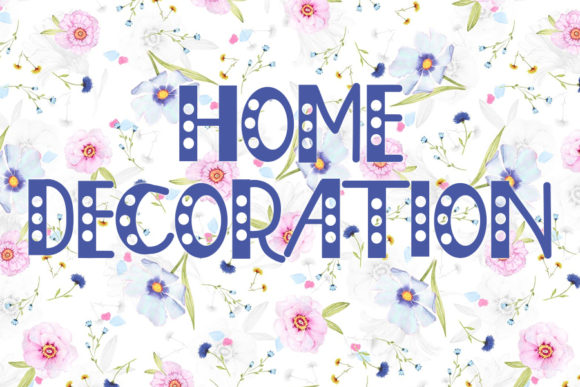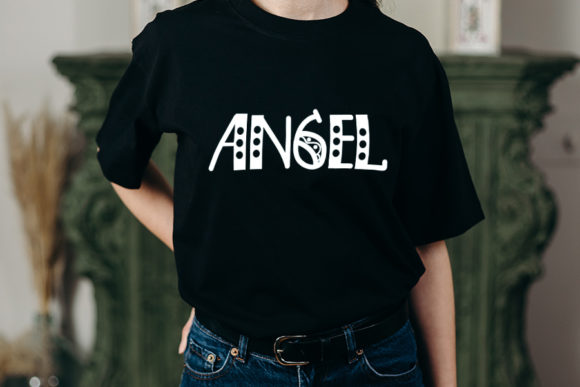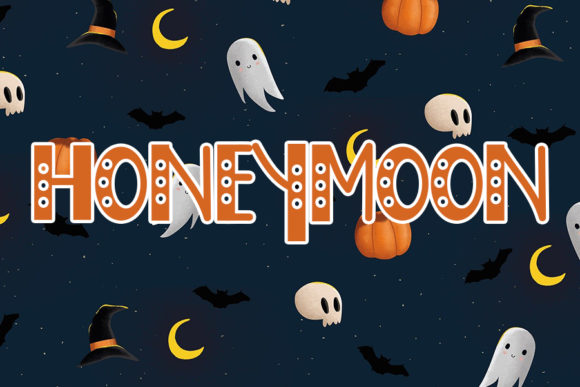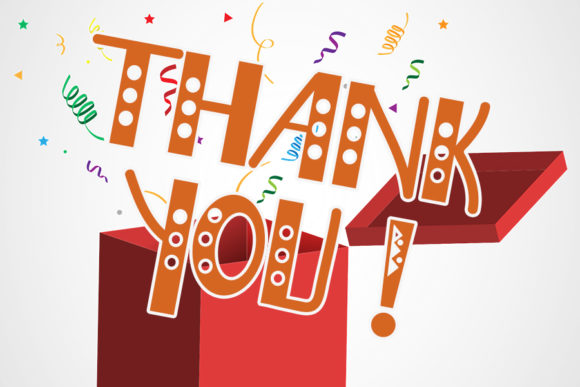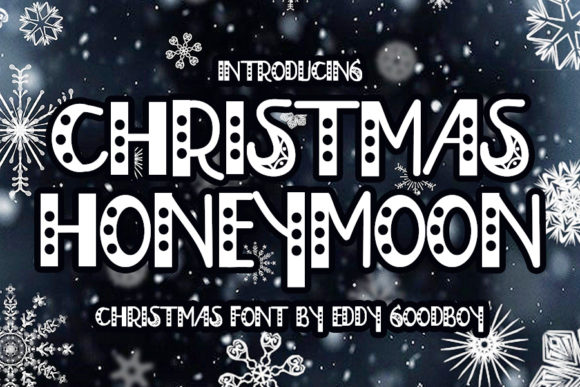
Introducing Christmas Honeymoon Font: The Ultimate Holiday Display Font
Are you looking for a font that captures the joy and magic of the holiday season? Look no further than Christmas Honeymoon Font, a cute and quirky display font that’s sure to add a touch of festive fun to your designs. In this article, we’ll take a closer look at this beautiful font and explore how it can elevate your creative projects.
What is Christmas Honeymoon Font?
Christmas Honeymoon Font is a display font designed to evoke the feeling of a romantic holiday getaway. With its playful and whimsical design, this font is perfect for adding a touch of personality to your designs. Whether you’re creating holiday cards, decorations, or promotional materials, Christmas Honeymoon Font is sure to make your projects stand out.
Key Features of Christmas Honeymoon Font
- Cute and Quirky Design: Christmas Honeymoon Font features a unique and playful design that’s sure to capture the attention of your audience.
- Display Font: This font is specifically designed for display purposes, making it perfect for headlines, titles, and other prominent text elements.
- Holiday Cheer: With its festive design, Christmas Honeymoon Font is the perfect choice for holiday-themed projects.
How to Use Christmas Honeymoon Font
Christmas Honeymoon Font is incredibly versatile and can be used in a variety of creative projects. Here are a few ideas to get you started:
- Holiday Cards and Invitations: Add a touch of festive fun to your holiday cards and invitations with Christmas Honeymoon Font.
- Decorations and Signage: Use Christmas Honeymoon Font to create eye-catching decorations and signage for your holiday events.
- Promotional Materials: Add some holiday cheer to your promotional materials, such as flyers, posters, and social media graphics.
- Crafting and Scrapbooking: Christmas Honeymoon Font is also perfect for crafters and scrapbookers looking to add a personal touch to their projects.
Tips for Using Christmas Honeymoon Font
To get the most out of Christmas Honeymoon Font, here are a few tips to keep in mind:
- Use it Sparingly: While Christmas Honeymoon Font is a beautiful font, it’s best used sparingly to avoid overwhelming your design.
- Pair it with Other Fonts: Experiment with pairing Christmas Honeymoon Font with other fonts to create a unique and visually appealing design.
- Experiment with Colors: Don’t be afraid to experiment with different colors and textures to add depth and interest to your design.
Why Designers and Crafters Love Christmas Honeymoon Font
Christmas Honeymoon Font has quickly become a favorite among designers and crafters, and for good reason. Here are a few reasons why:
- Unique Design: Christmas Honeymoon Font features a unique and playful design that’s sure to capture the attention of your audience.
- Easy to Use: This font is incredibly easy to use, making it perfect for designers and crafters of all skill levels.
- Versatile: Christmas Honeymoon Font can be used in a variety of creative projects, from holiday cards to promotional materials.
If you’re looking for a font that captures the joy and magic of the holiday season, look no further than Christmas Honeymoon Font. With its cute and quirky design, this font is sure to add a touch of festive fun to your designs. Whether you’re a designer, crafter, or simply someone who loves the holiday season, Christmas Honeymoon Font is the perfect choice for your next creative project.